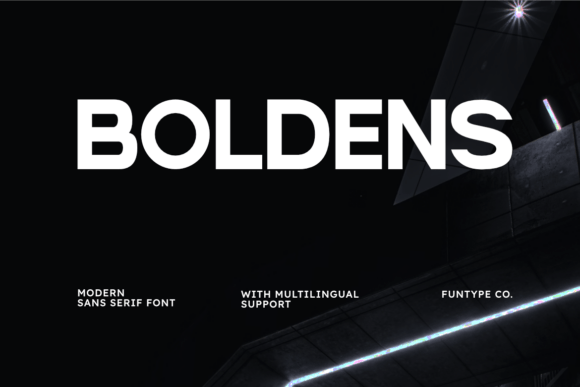
The Perfect Font for Making a Statement
As designers, we’ve all been there – staring at a blank screen, trying to find the perfect font to elevate our project. It’s that moment when the entire design falls into place, and you know you’ve got a winner. For me, it was when I discovered Boldens Font – a modern sans-serif font that instantly gave my design a boost of confidence.
Boldens Font is a game-changer for designers, offering a clean, geometric style that’s perfect for creating impactful titles and strong branding. With its bold weight and multilingual support, it’s a versatile choice for any project, from digital content to print materials. Whether you’re working on a logo design, social media graphics, or advertising campaigns, Boldens Font ensures your designs stand out with clarity and confidence.
Boldens Font Key Features
- Unique Characteristics: Features a distinctive, modern sans-serif design with bold lines and a clean, minimalist aesthetic.
Boldens Font Review
I recently had the chance to work with Boldens Font, and I must say, it’s a mixed bag. Here’s my honest take on this font.
- Unique style: Boldens Font has a distinct personality that sets it apart from other fonts. It’s a great choice for those looking for something unconventional.
- High legibility: Despite its bold and playful nature, Boldens Font remains easy to read, even at smaller font sizes.
- Excellent for headings: The font’s bold and eye-catching qualities make it perfect for headings and titles.
- Not ideal for body text: While Boldens Font is great for headings, it can be overwhelming for large blocks of body text.
- Limited language support: I noticed some issues with language-specific characters and accents, which can be a problem for multilingual designs.
- Not suitable for print: The font’s boldness can make it difficult to read in print formats, so it’s best to use it for digital designs.
Boldens Font is a great choice for designers looking for a unique and eye-catching font, but it may not be the best fit for every project. With its limitations in mind, it’s essential to use it thoughtfully and in the right context.
Getting the Most Out of Boldens Font
For the best results, use Boldens Font in conjunction with high-contrast backgrounds and bold, eye-catching graphics. Experiment with different font sizes and styles to create visual interest. You can also use the font to create a consistent brand identity across multiple design elements.
Boldens Font is ideal for use in headings, titles, and other large blocks of text. It’s also great for creating bold, eye-catching graphics and advertisements. Use the font to add a touch of sophistication and elegance to your designs.
Alternatives to Boldens Font
Inter Font is a modern sans-serif typeface designed by Rasmus Andersson. It’s a versatile and highly legible font suitable for various design projects, including digital interfaces, print materials, and signage. Inter Font is a great alternative to Boldens Font as it offers a similar clean and minimalist aesthetic, but with a more neutral and adaptable character.
Comparison: Inter Font has a more subtle and understated feel compared to Boldens Font, making it a better choice for projects that require a more neutral tone.